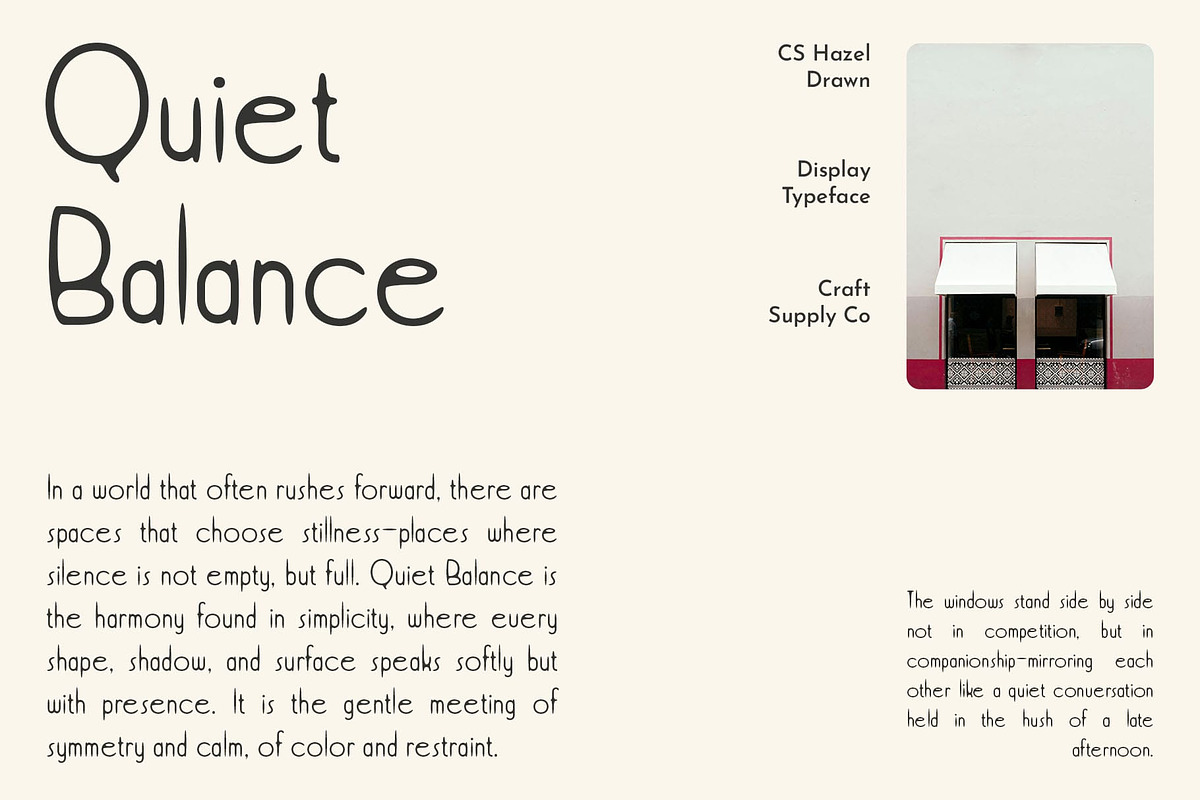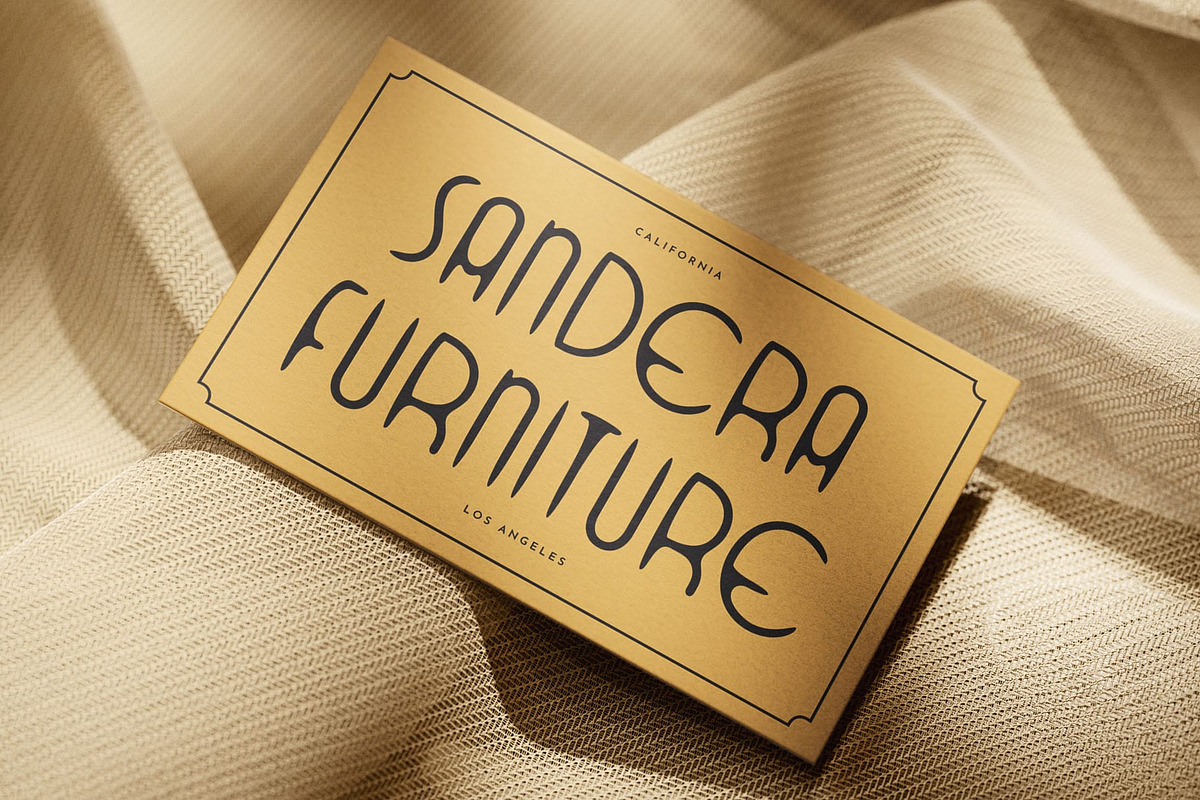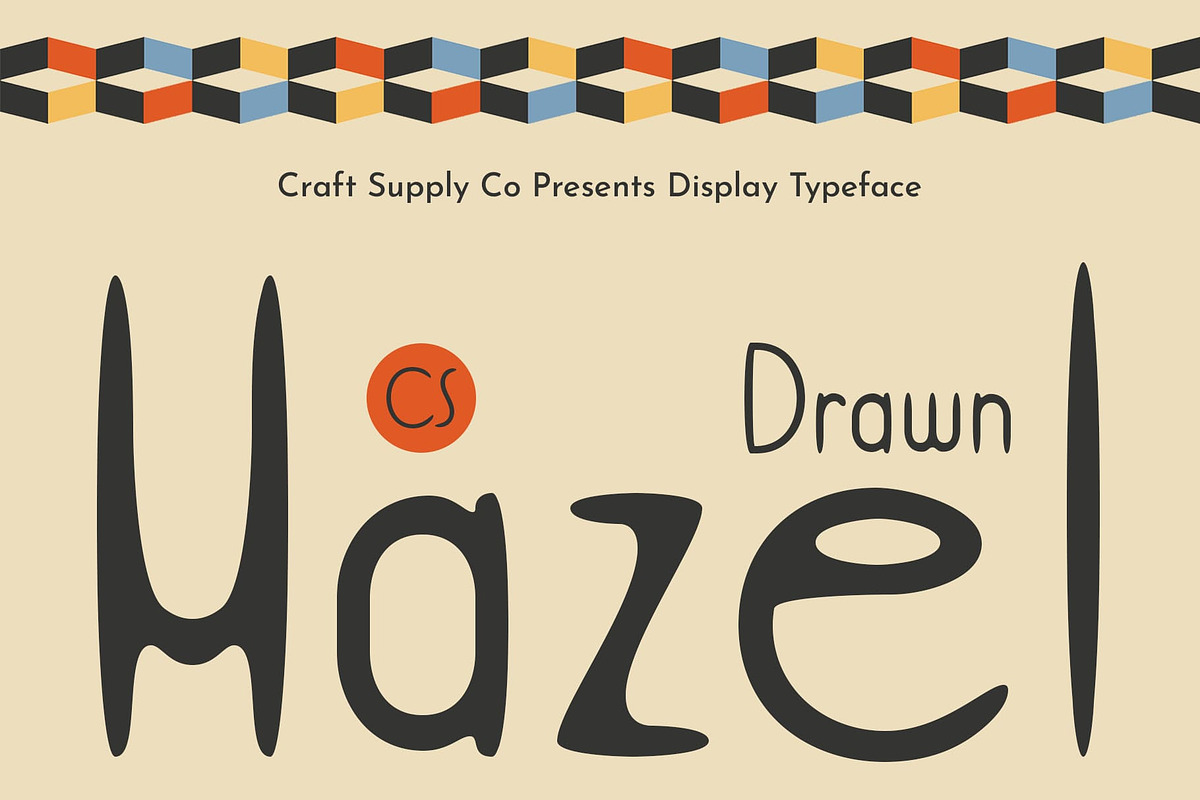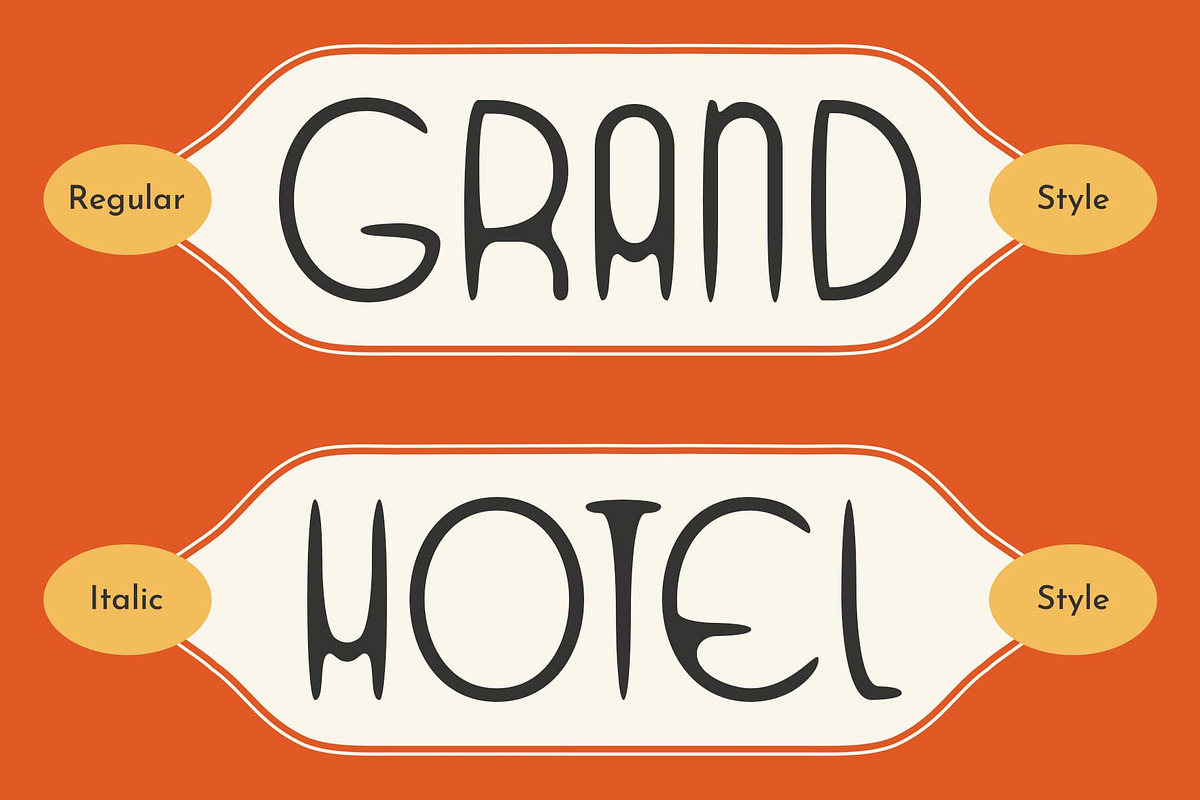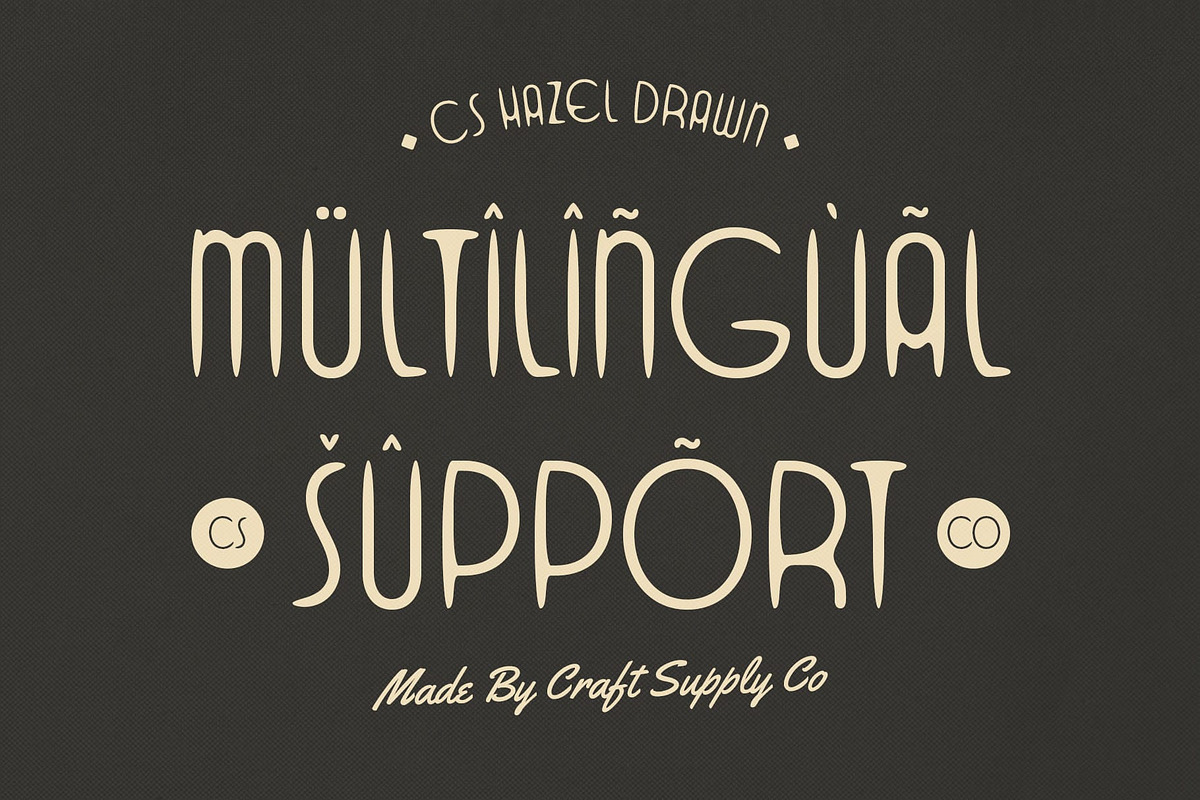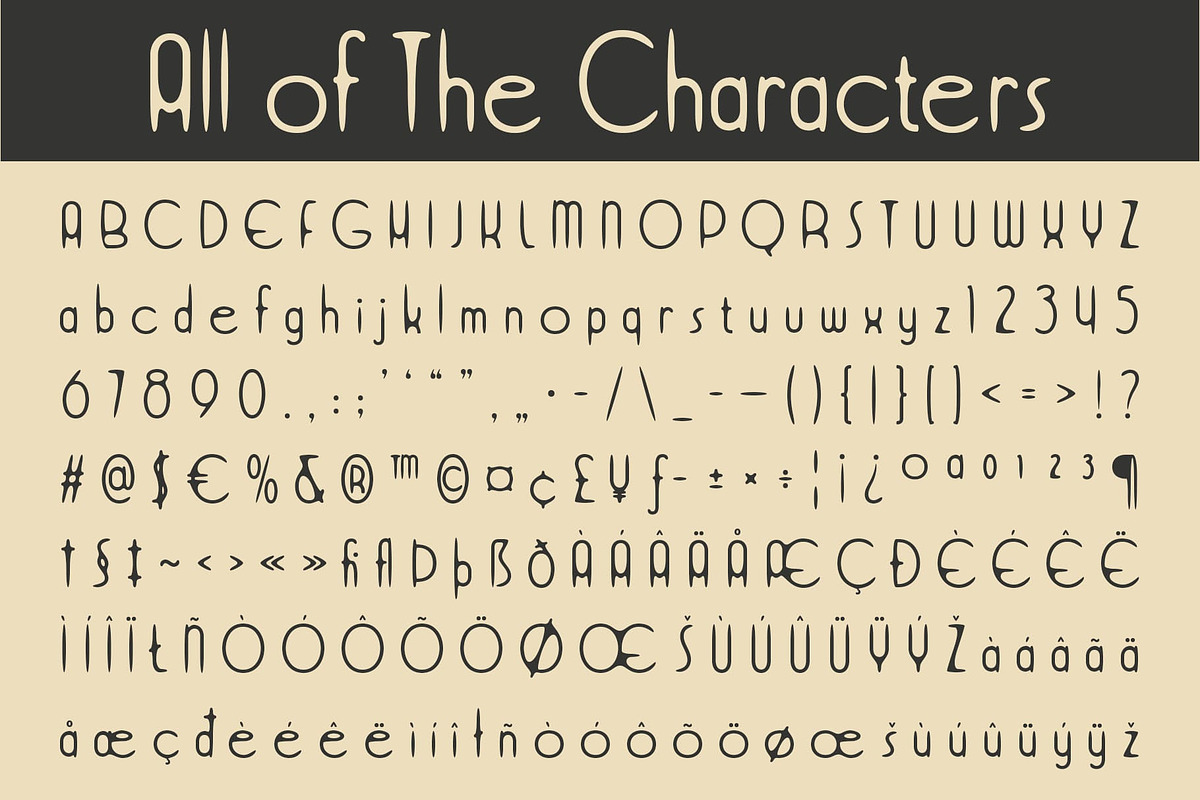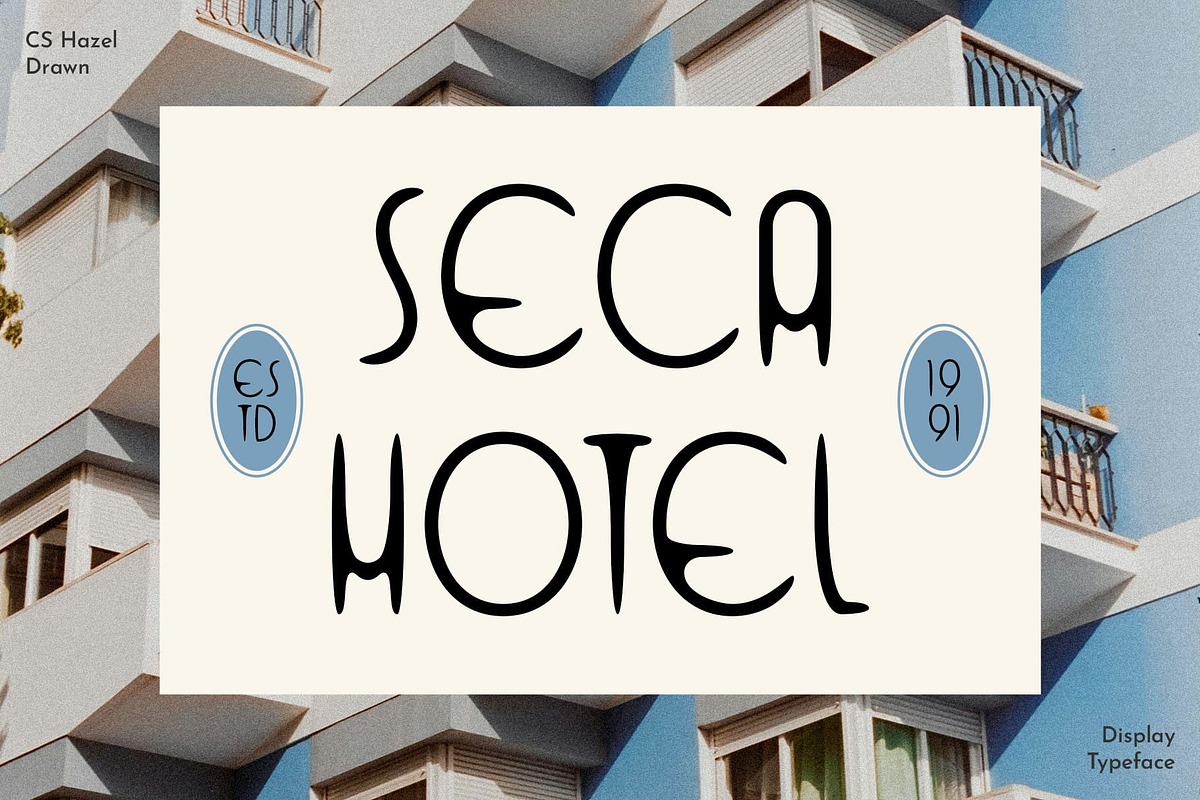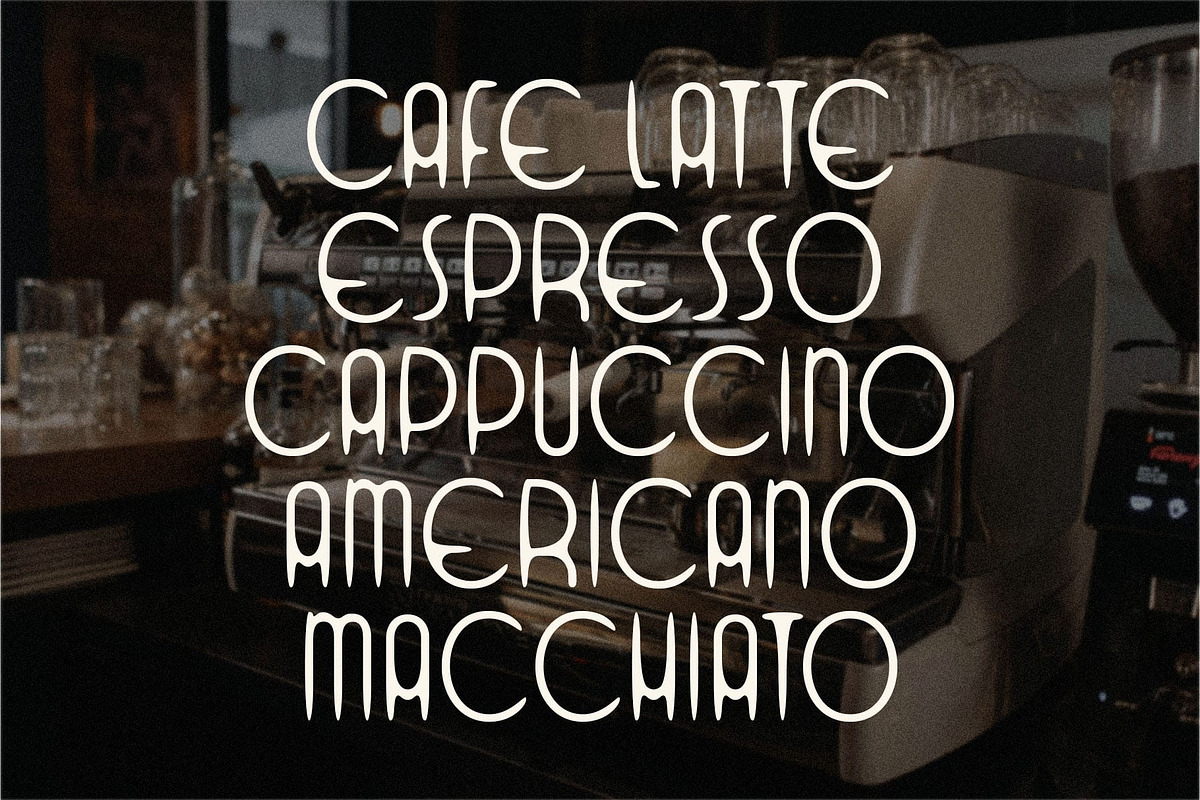
CS Hazel Drawn
CS Hazel Drawn – A Modern Sans-Serif with Art Deco Elegance and Handcrafted Flair
Where Geometry Meets Expression CS Hazel Drawn is a modern sans-serif font that channels the iconic geometry of Art Deco with a clean and contemporary sensibility. Rooted in the design language of the 1920s and 1930s, it features crisp lines, symmetrical angles, and refined proportions that bring structure and sophistication to every letterform.
Art Deco Foundation, Modern Simplicity At its core, this handcrafted font stays true to the defining features of Art Deco—vertical emphasis, symmetrical forms, and stylized simplicity—while embracing the clarity of a sans-serif build. Its geometric shapes and confident structure give your text a sense of order and luxury, making it ideal for high-end design projects where precision and beauty go hand in hand.
Hand-Drawn Texture for a Human Touch What sets this font apart is the drawn effect—a handcrafted texture that overlays the structured form, introducing a warm, organic quality. This subtle irregularity adds an expressive, artistic flair, softening the rigid geometry and imbuing the font with a sense of personality and depth.
Versatile and Character-Driven This stylish font is ideal for headlines, branding, editorial layouts, packaging, or typographic posters that need to make a statement. Its luxurious yet approachable vibe allows it to adapt to fashion, lifestyle, architecture, and even creative business projects.